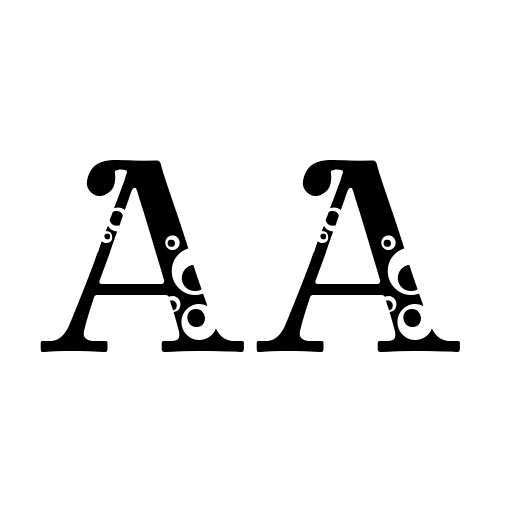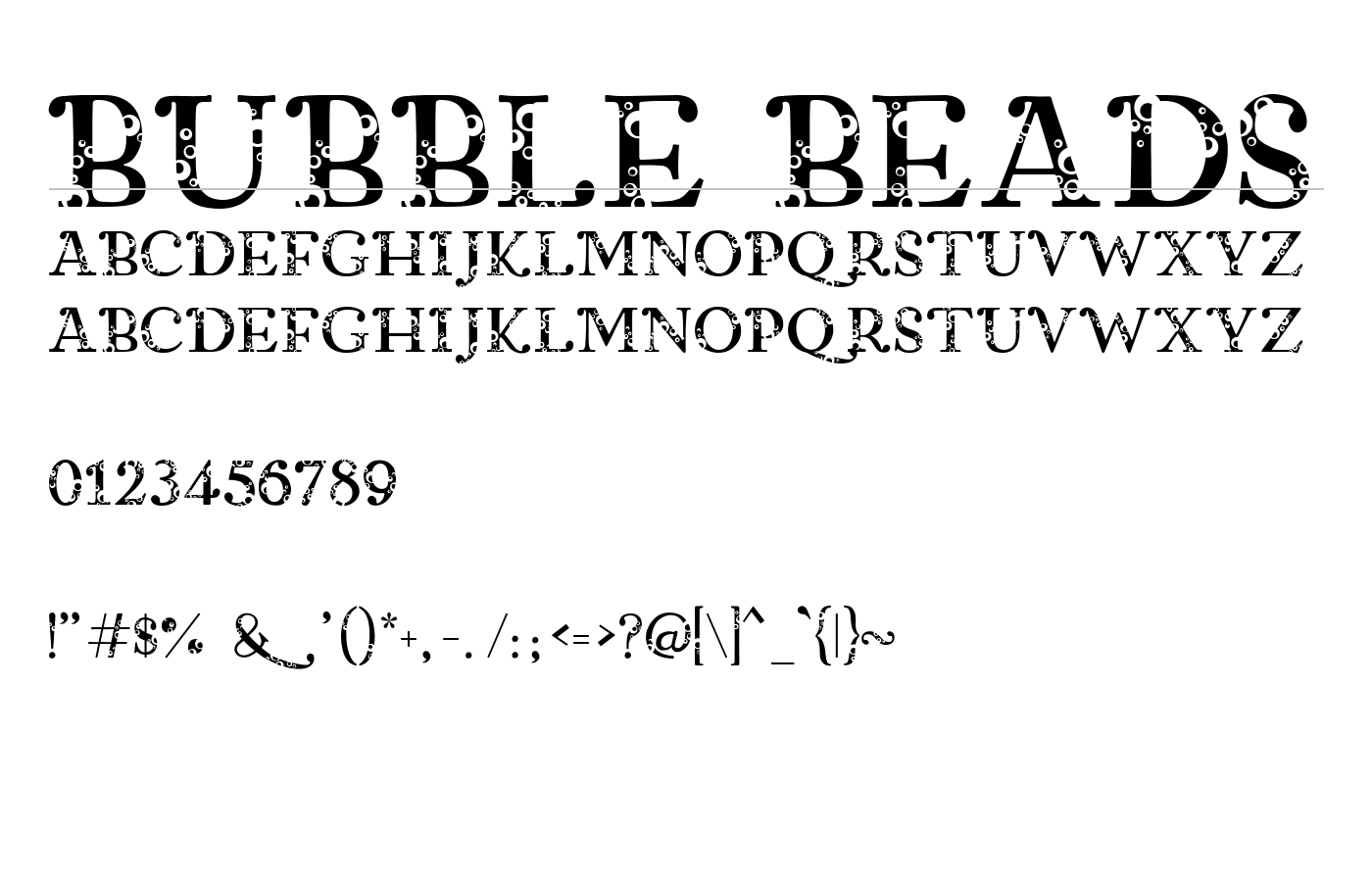
Bubble Beads is a playful and decorative serif font that features bold, sturdy letterforms adorned with whimsical bubble-like embellishments. Its medium weight and normal width combined with a high contrast between thick and thin strokes give it a lively, eye-catching personality, making it ideal for fun, creative designs such as party invitations, children’s books, or quirky branding. This font works best in headlines or logos where its unique details can shine without compromising readability.
Bubble Beads Font
About Bubble Beads Font